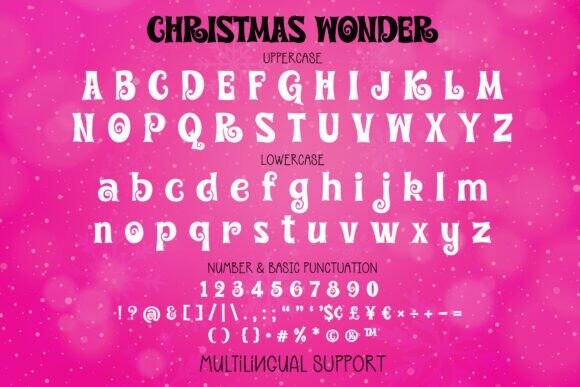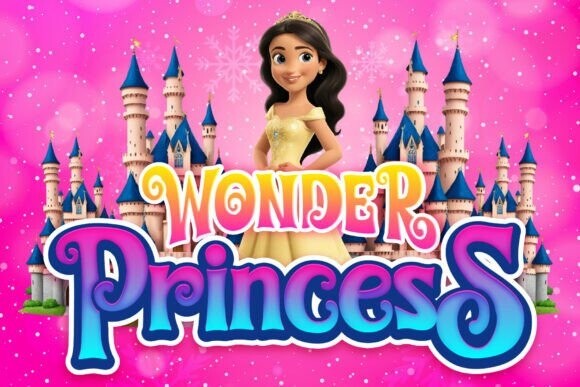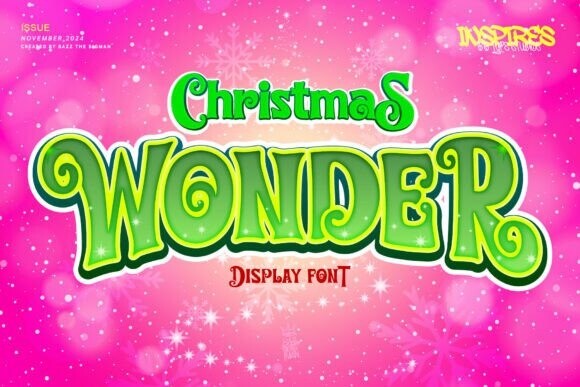
Christmas Wonder Font
Christmas Wonder Font, a vibrant and festive display font. Perfectly suited to bring your holiday creations to life, Christmas Wonder adds a touch of exuberance and merriment to your designs, echoing the heartfelt joy of the season. Give your projects the gift of seasonal charm with Christmas Wonder!